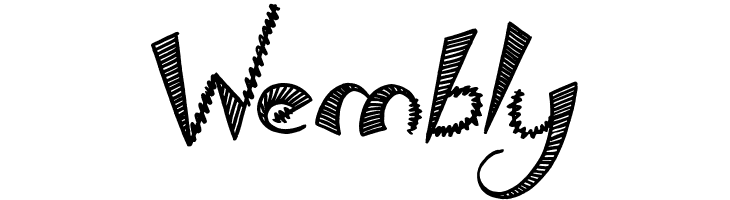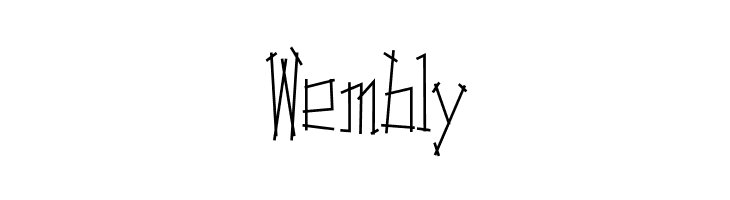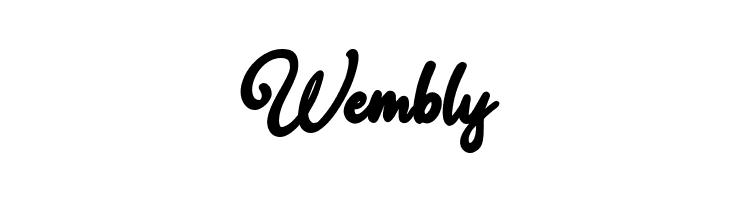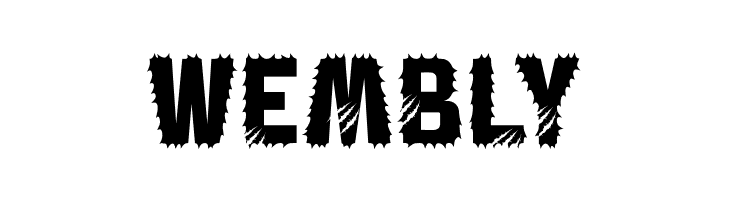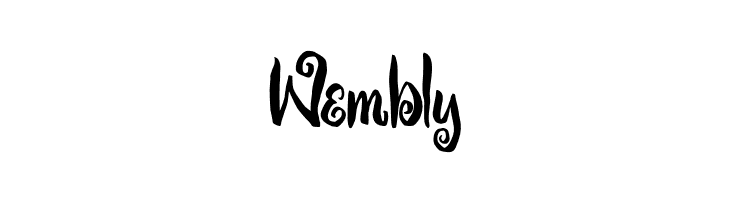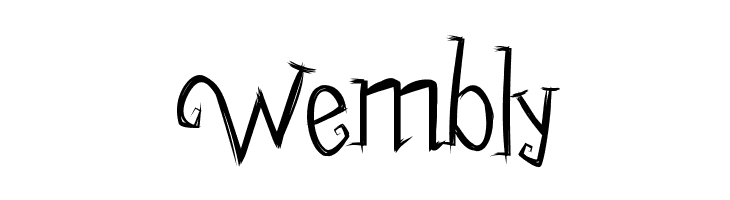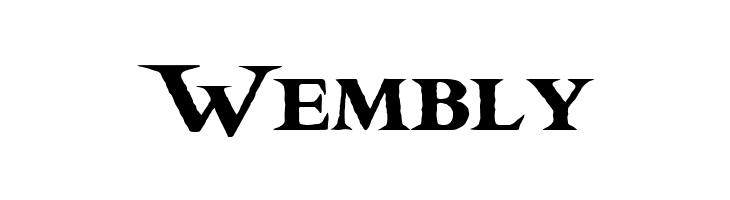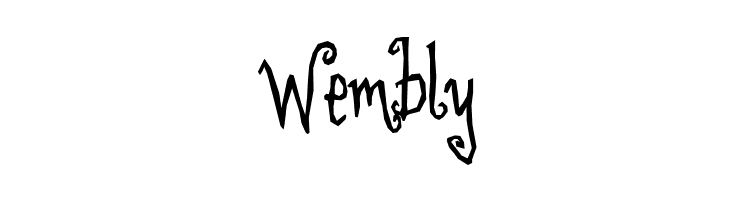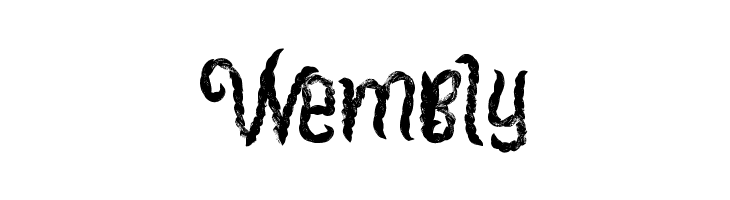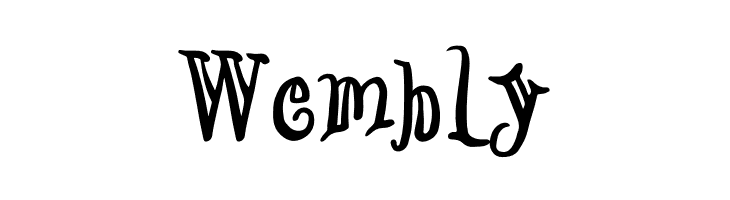
A bold, angular font with sharp edges and a dynamic, edgy style.
A bold, italic serif font with sharp, angular features and a dynamic style.
A bold, gothic font with dripping, textured elements and a blackletter style.
A thorny, gothic-style font with intricate, jagged edges.
A futuristic, geometric font with sharp angles and a modern style.
A modern, geometric font with clean lines and a futuristic style.
A gothic, medieval-inspired font with bold, thorn-like embellishments.
A bold, gothic font with intricate, mystical detailing.
A mystical, angular font with a geometric, rune-like design.
A bold, angular font with a medieval and fantasy-inspired design.
A dynamic, zigzag-patterned font with a playful and energetic style.
A whimsical, hand-drawn font with intricate patterns and playful energy.
A modern, angular font with geometric letterforms and a futuristic aesthetic.
A bold, cursive font with a playful and dynamic style.
A bold, jagged font with a spooky, dynamic design.
A whimsical, curly font with playful and decorative letterforms.
A whimsical, hand-drawn font with a magical, gothic flair.
A bold, decorative font with medieval-inspired serifs and ornate details.
A whimsical, hand-drawn font with curly, irregular strokes perfect for magical and playful designs.
A decorative, textured font with whimsical curls and a hand-drawn feel.
A whimsical, hand-drawn font with playful, irregular strokes and enchanting curves.
A whimsical, decorative font with playful, gothic-inspired serifs.
A whimsical, decorative font with playful curves and gothic flair.
A bold, playful handwritten font with thick strokes and a casual style.
A spooky, cobweb-adorned font perfect for Halloween themes.
A dynamic, brush-style handwritten font with fluid strokes and artistic flair.
A whimsical, decorative font with a magical, gothic flair.
A whimsical, textured script font with a playful, hand-drawn style.
A bold, brushstroke-style font with a playful, handcrafted appearance.
A playful, handwritten font with a lively and whimsical style.
A playful, bold handwritten font with smooth, rounded letterforms.
A whimsical, curly font with a playful, hand-drawn style.